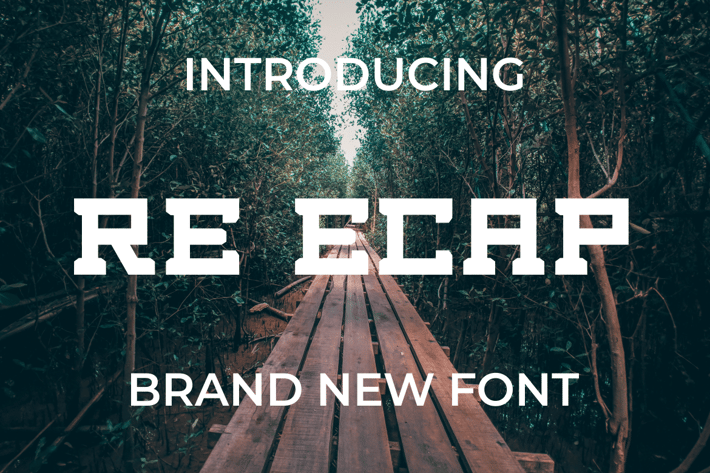
RE Ecap Font
Introducing our new product RE Ecap Font - Modern Font
RE Ecap Font - Modern Font is a bold and authentic display font. The font is suitable for any branding project like logo, t-shirt printing, esport, and many more. outstanding in a wide range of contexts.